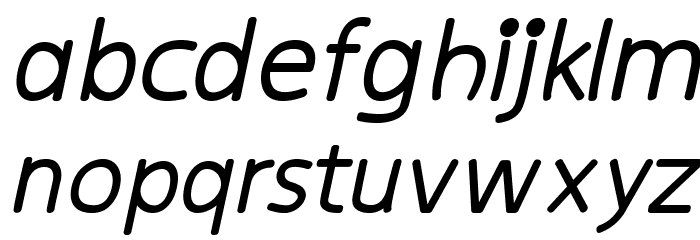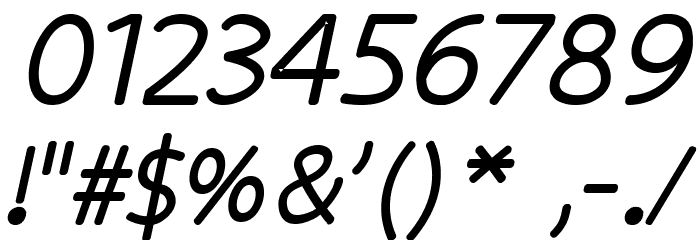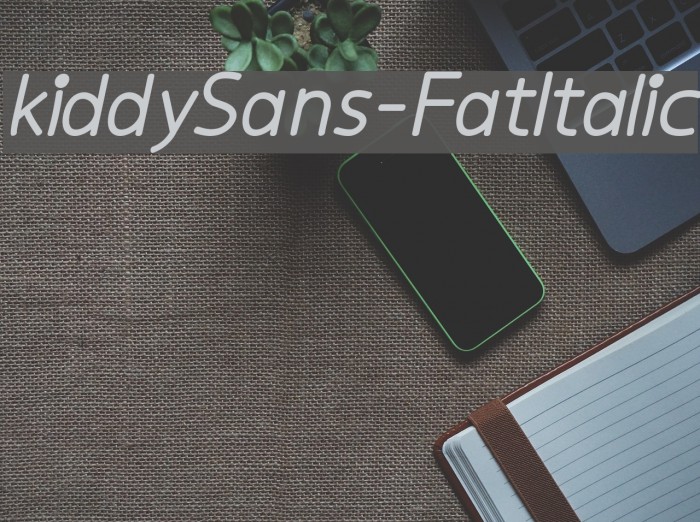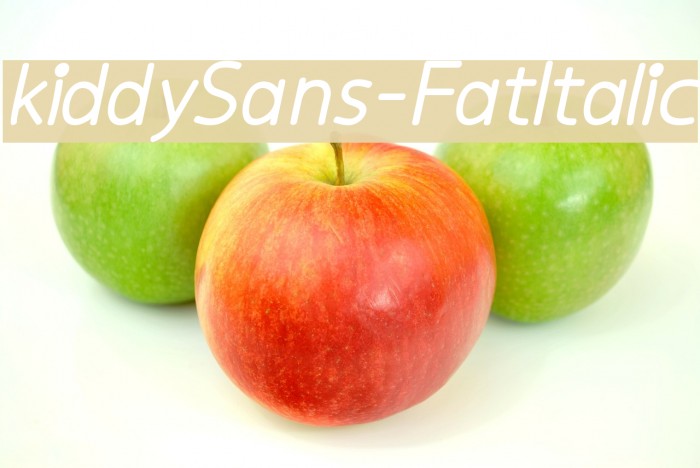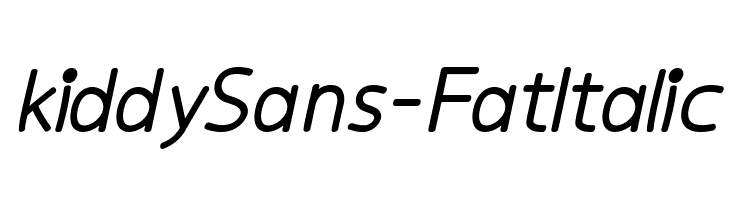
kiddySans-FatItalic Font
This playful and rounded typeface features a bold and italic style, giving it a lively and dynamic appearance. The characters are slightly slanted, enhancing its energetic feel. The strokes are thick and consistent, providing a sense of stability and readability. The font's rounded edges and smooth curves contribute to its friendly and approachable look, making it suitable for a variety of informal and creative applications. The numerals and special characters maintain the same playful aesthetic, ensuring a cohesive design across all elements.
A playful, bold, and italic typeface with rounded edges and smooth curves.
- Proposed Projects: Ideal for children's books, playful branding, casual invitations, and creative posters.
- Overall Style: Playful
- Use Case: Headlines, Logos, Informal Text